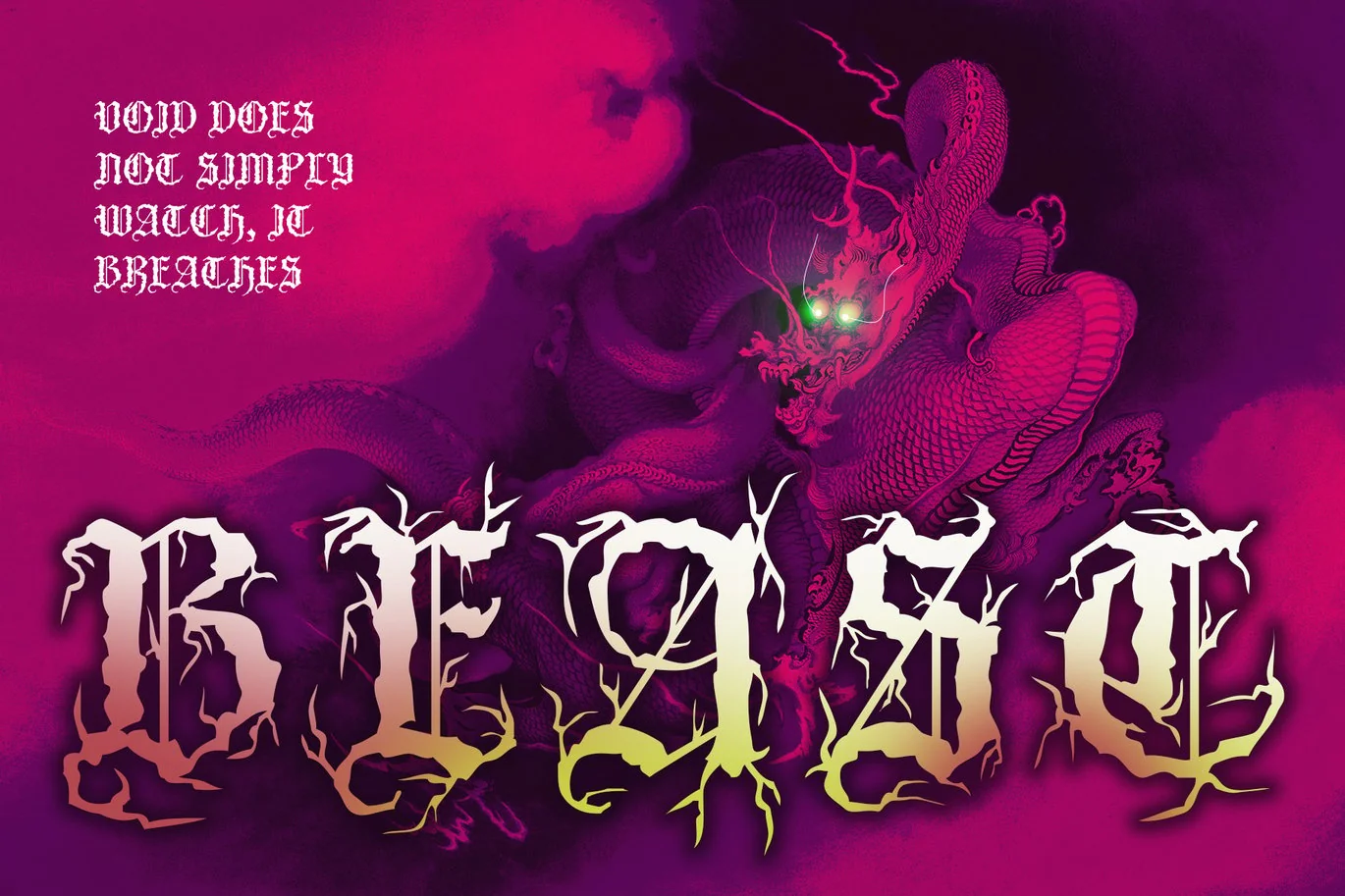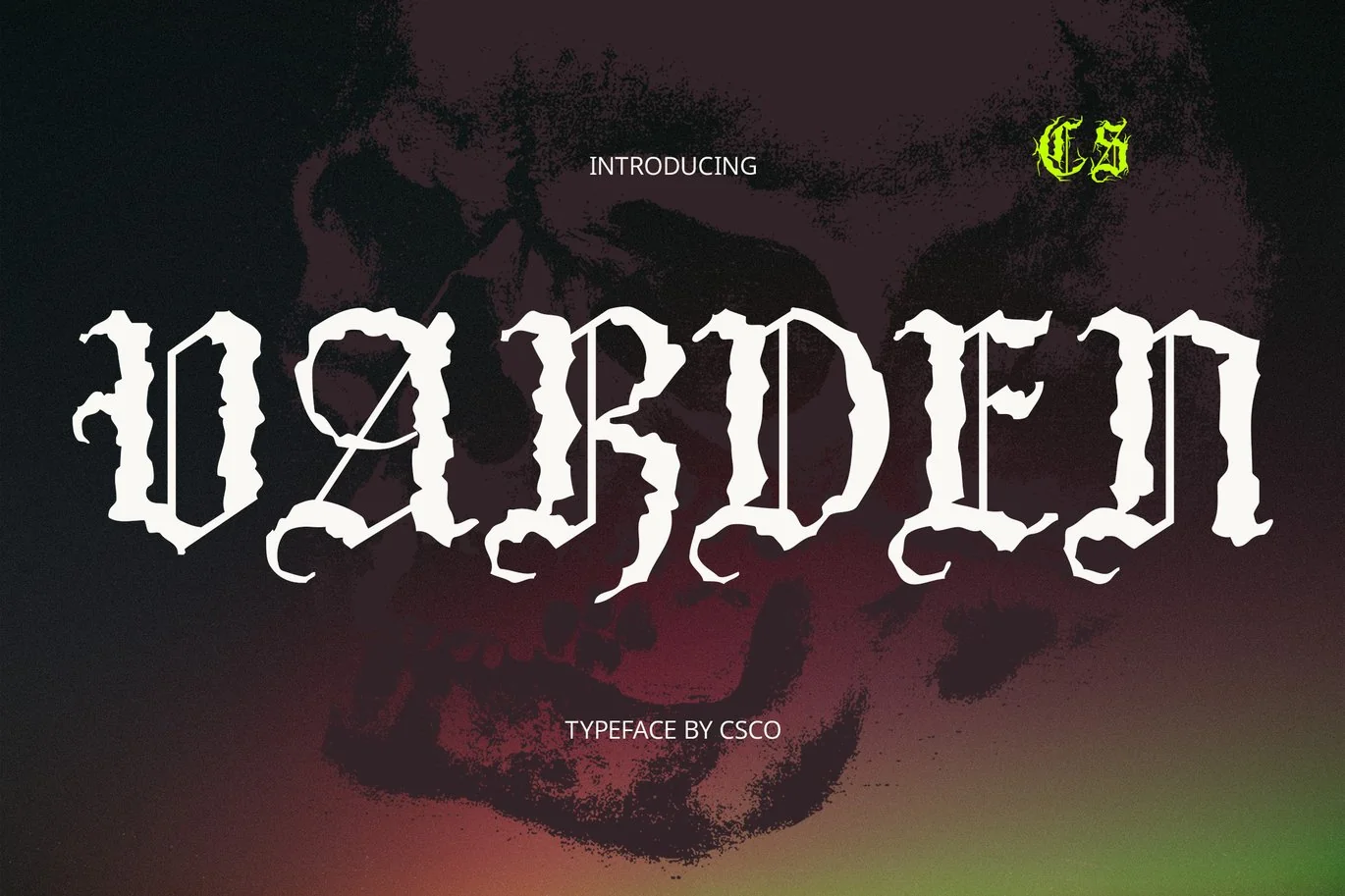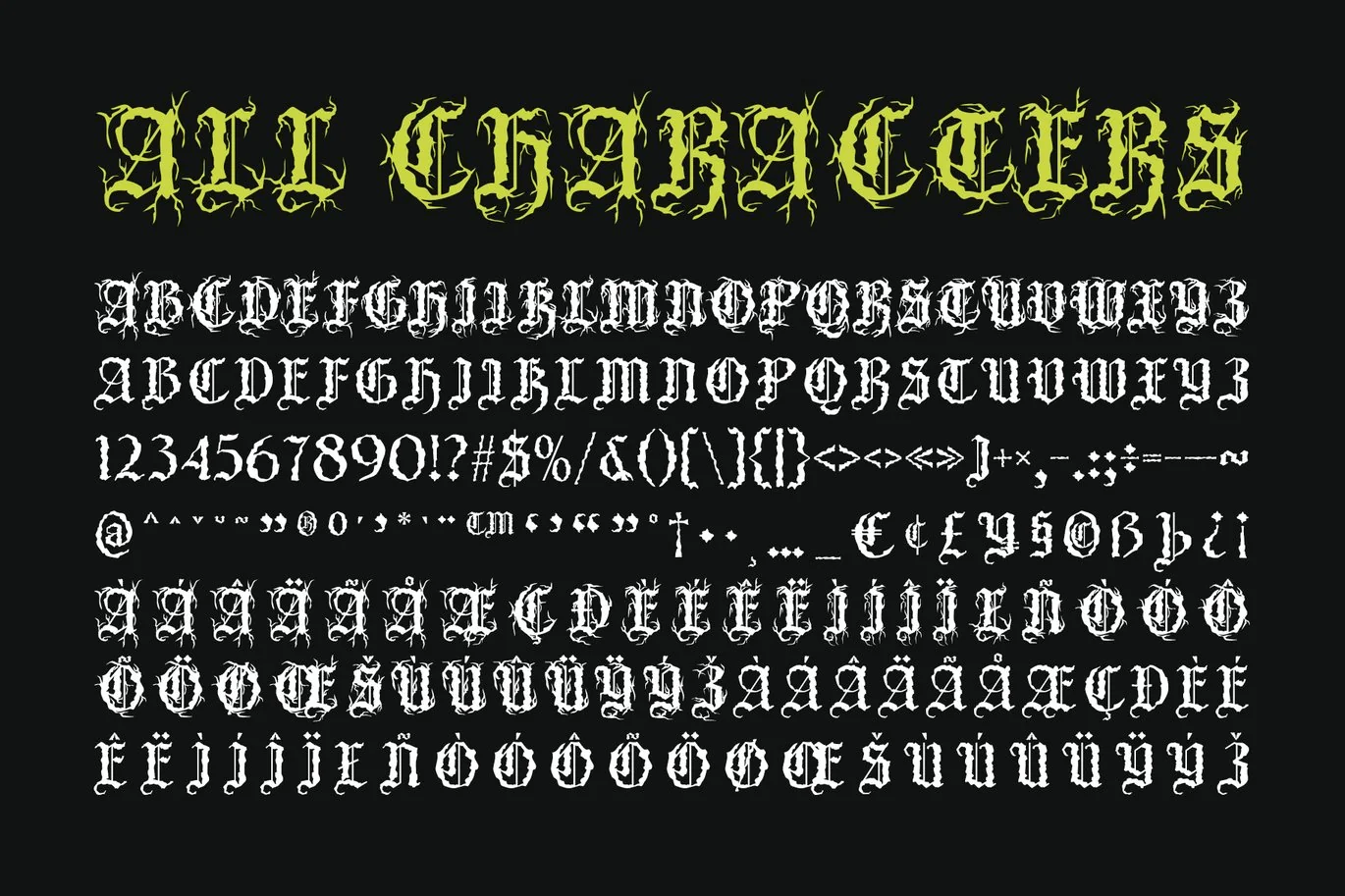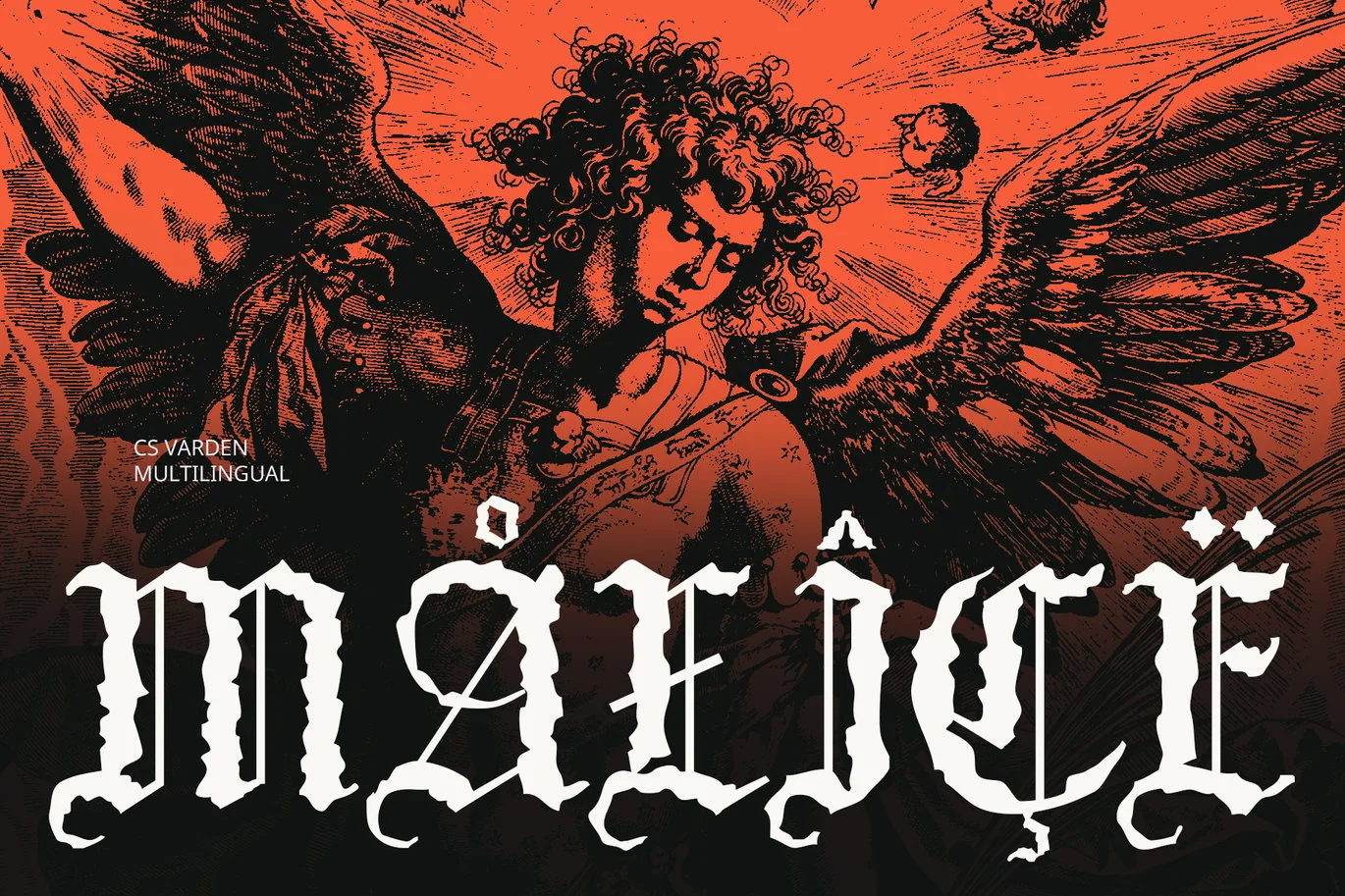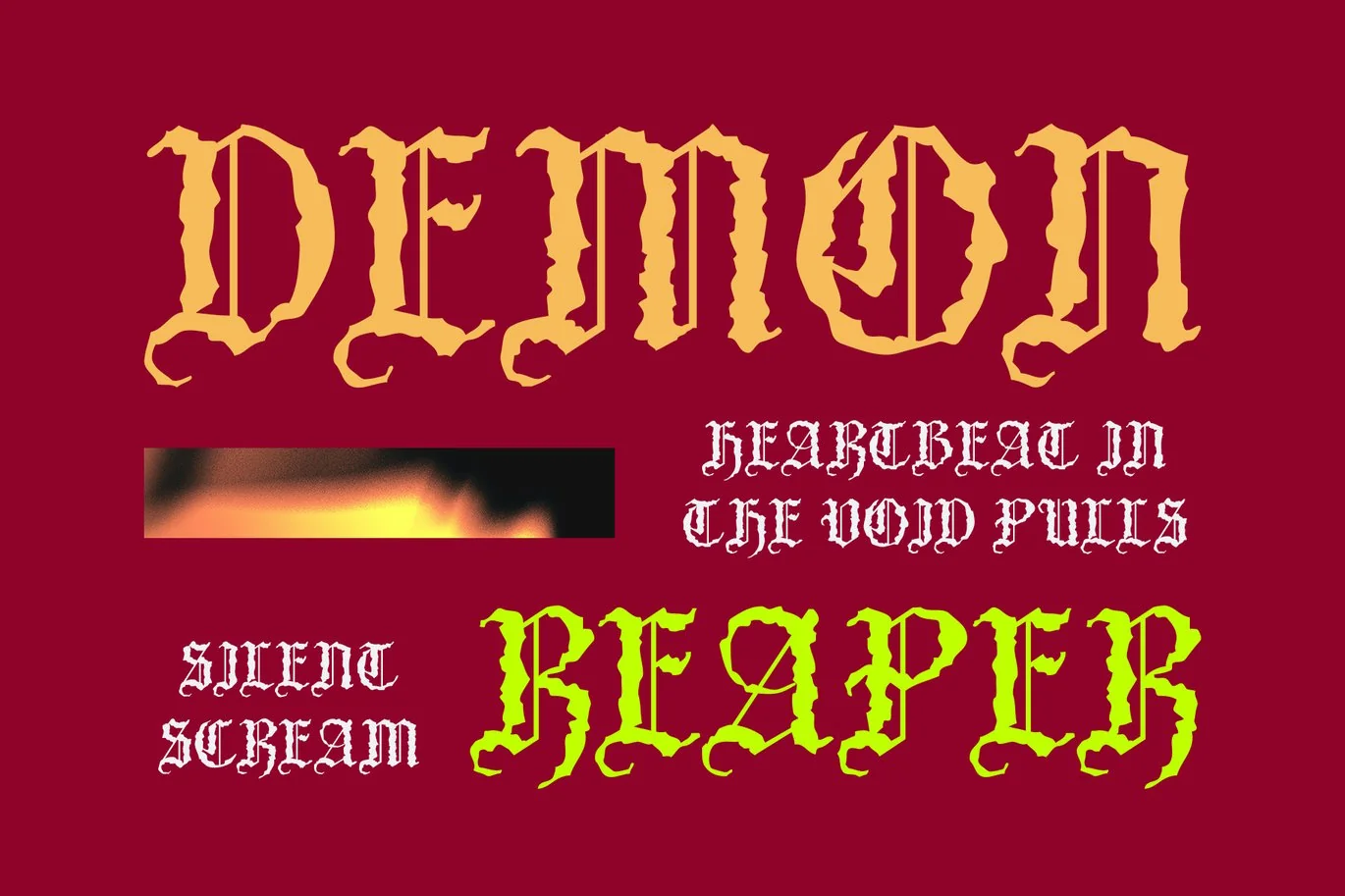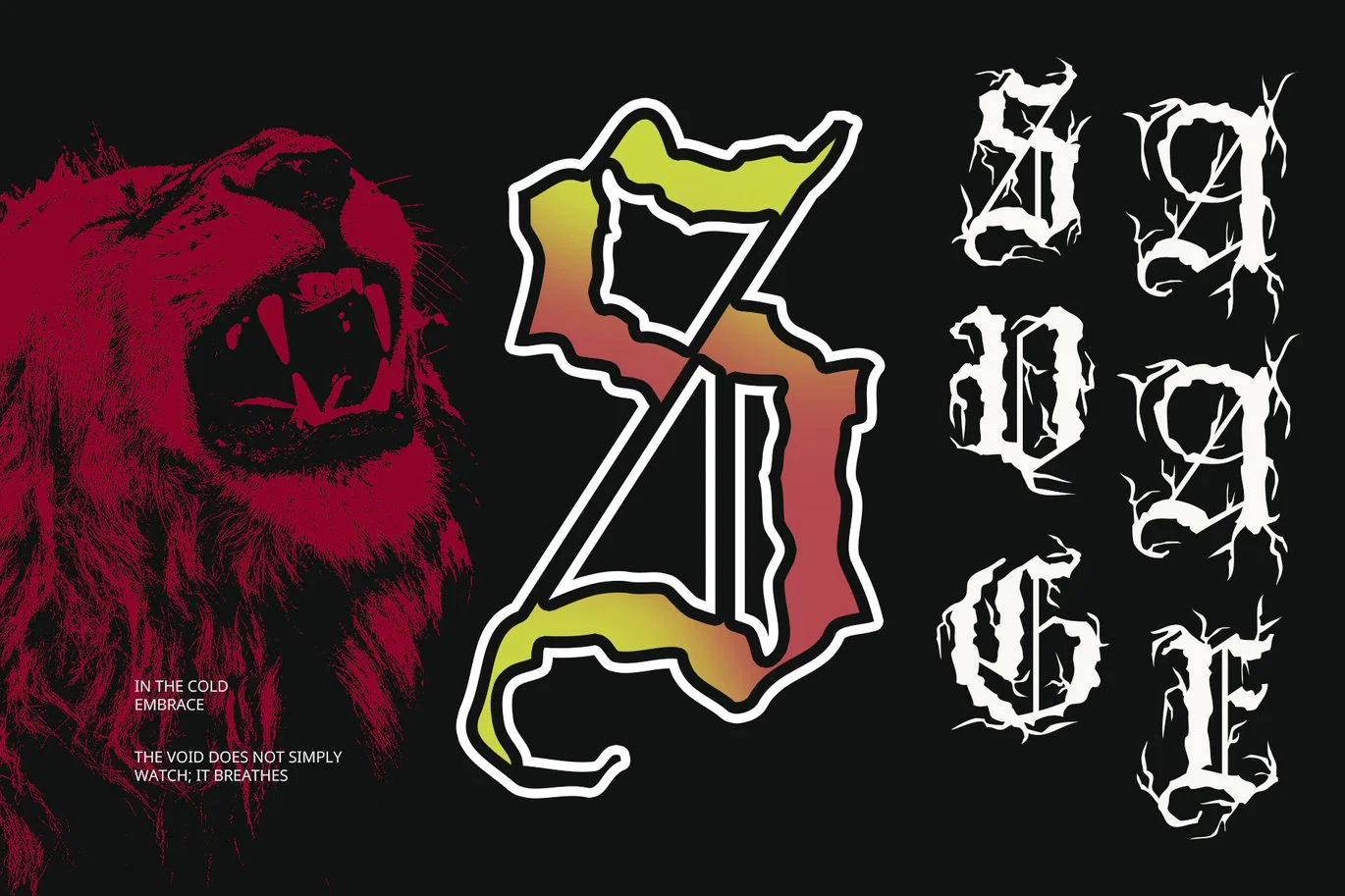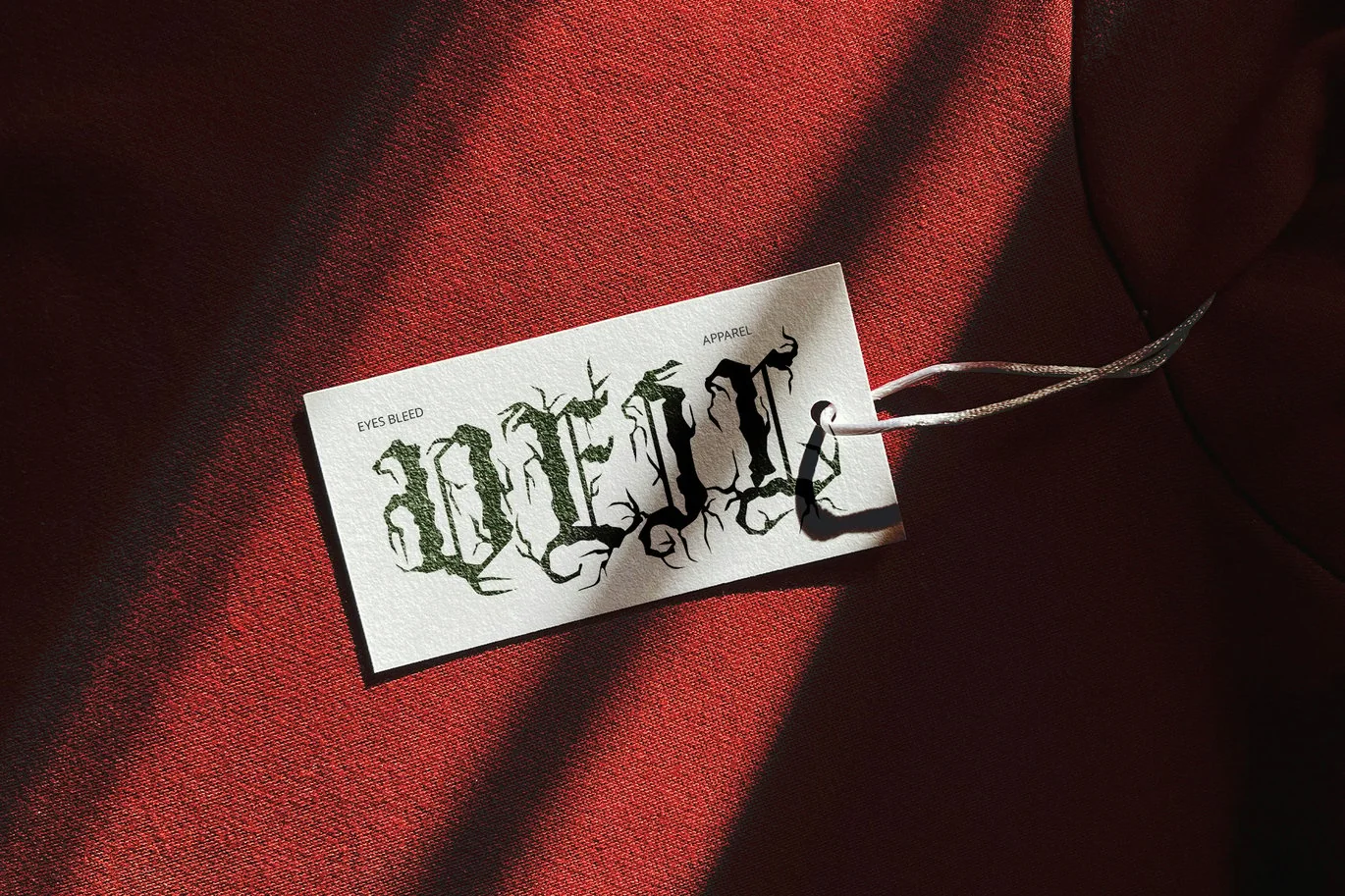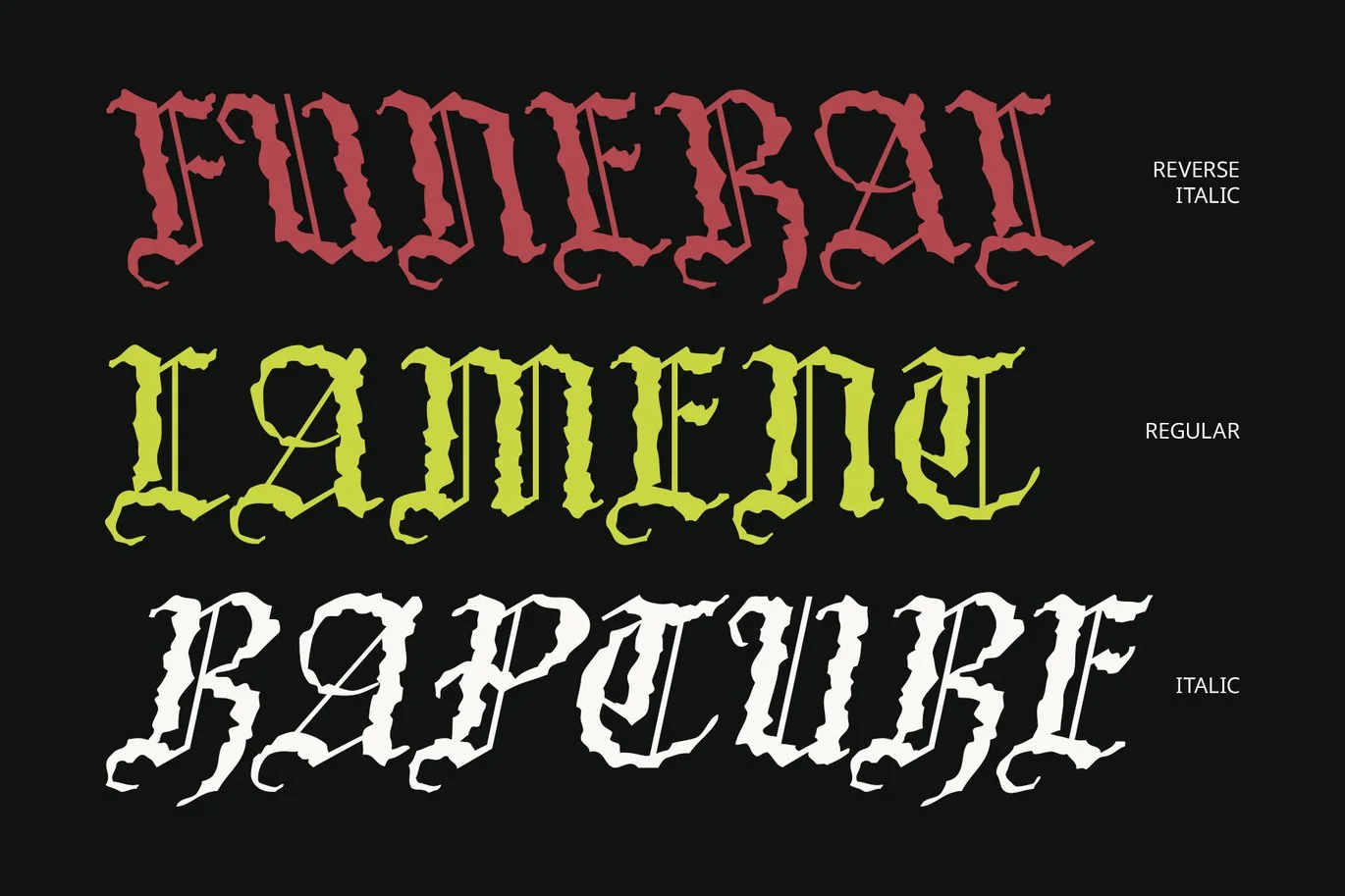
Varden – Black Metal Font
CS Varden – Black Metal Font: Where Blackletter Meets Brutality
Blackletter Style with Black Metal Aesthetics
CS Varden – Black Metal Font is a display typeface that fuses the timeless structure of blackletter with the aggressive, chaotic spirit of black metal design. Its bold and jagged letterforms capture a raw, rebellious energy, making it the perfect font for projects that push boundaries.
Sharp, Bold, and Dark Character
The extreme sharpness and dense structure of CS Varden exude intensity and darkness. Every letterform is crafted to create a daring and mysterious impression—ideal for those seeking to channel the essence of underground music culture or horror-infused visuals.
Defiant and Unconventional Design
Built for projects that demand more than the ordinary, CS Varden challenges convention with its bold presence. It’s a powerful choice for branding that seeks to break free from polished norms and embrace something more intense, more primal, and unapologetically different.
Perfect for Music, Horror, and Dark Branding
Whether you’re working on metal band identities, horror-themed posters, or bold editorial graphics, CS Varden delivers. Its blend of historical blackletter tradition with extreme modern design makes it ideal for creators who want their work to be unforgettable, fierce, and fearlessly expressive.